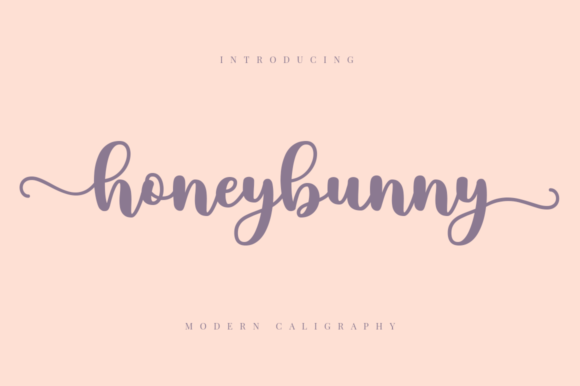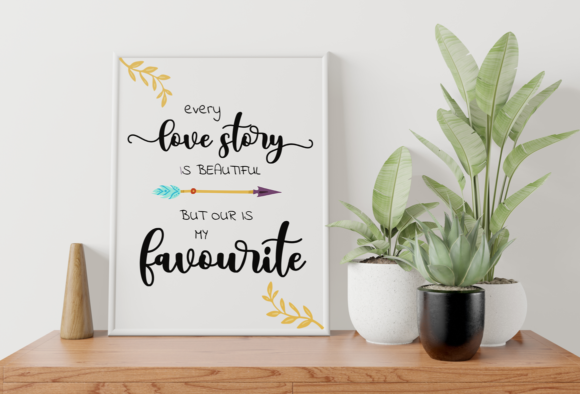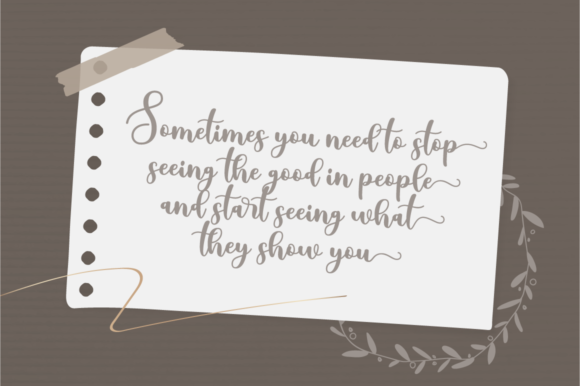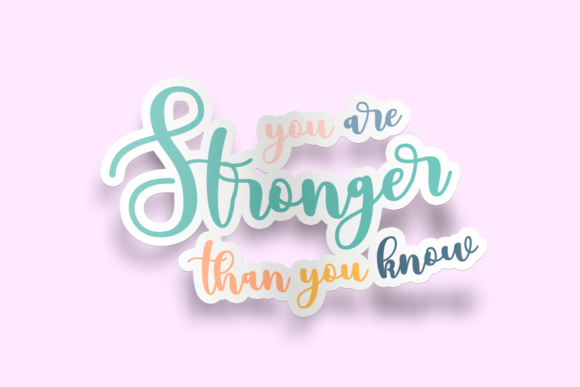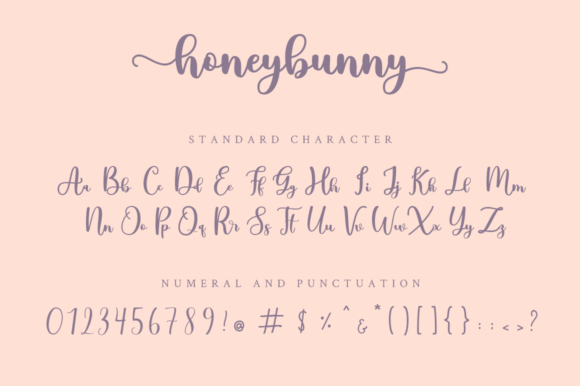
Honeybunny Font
About Honeybunny Font
Honeybunny is a cute and cursive script font. This font is PUA encoded which means you can access all of the amazing glyphs and ligatures with ease! Fall for its ravishing style and use it to create gorgeous designs.